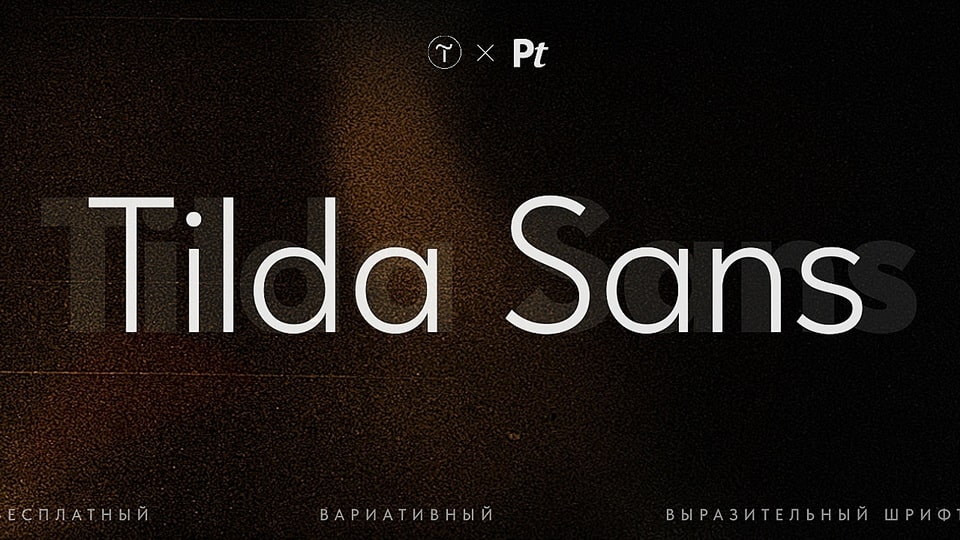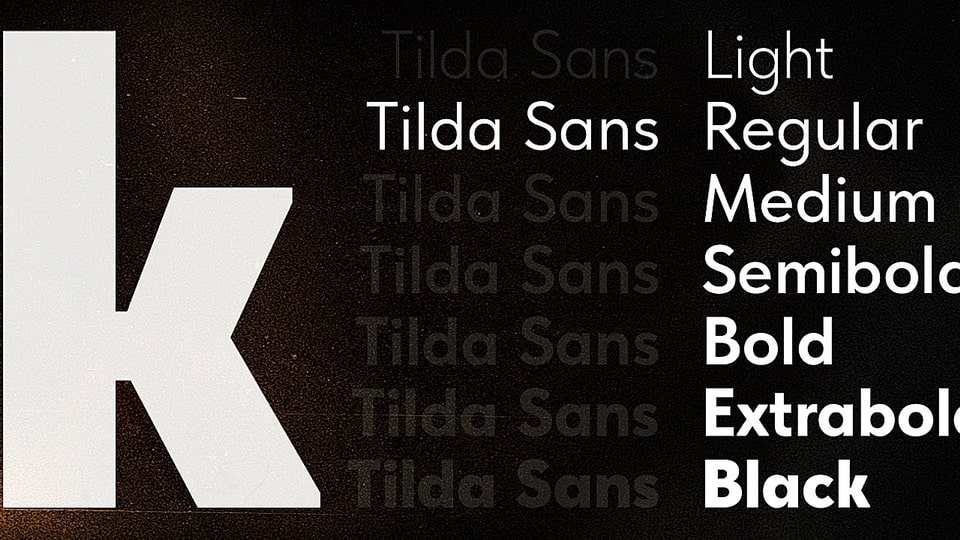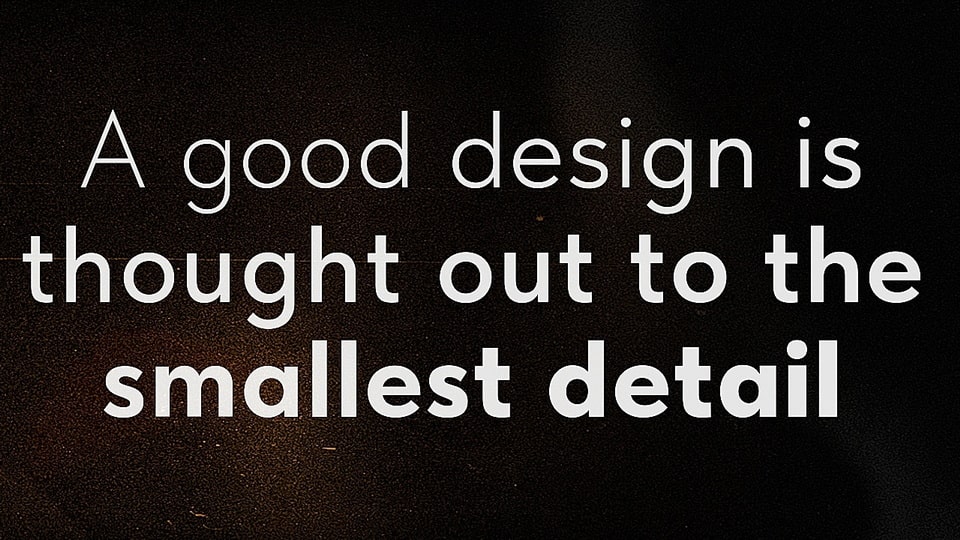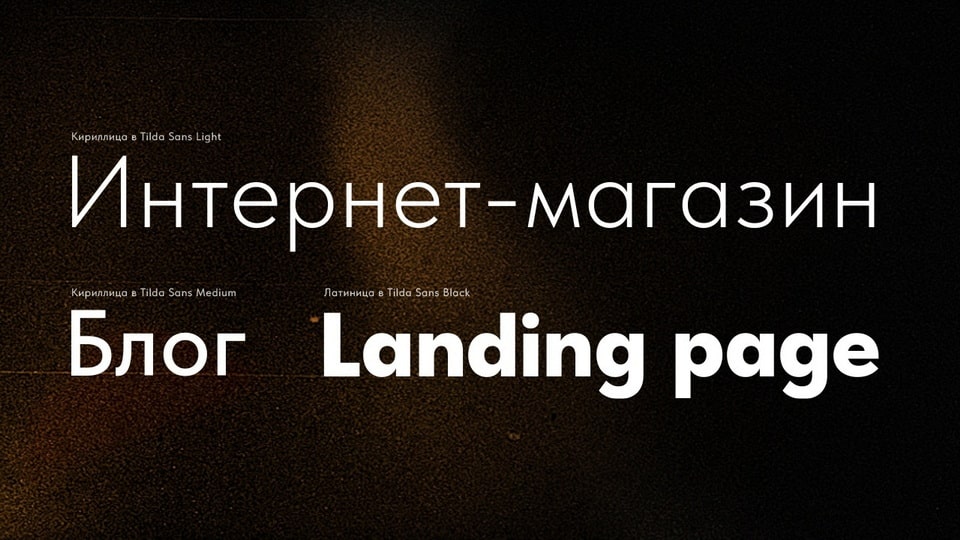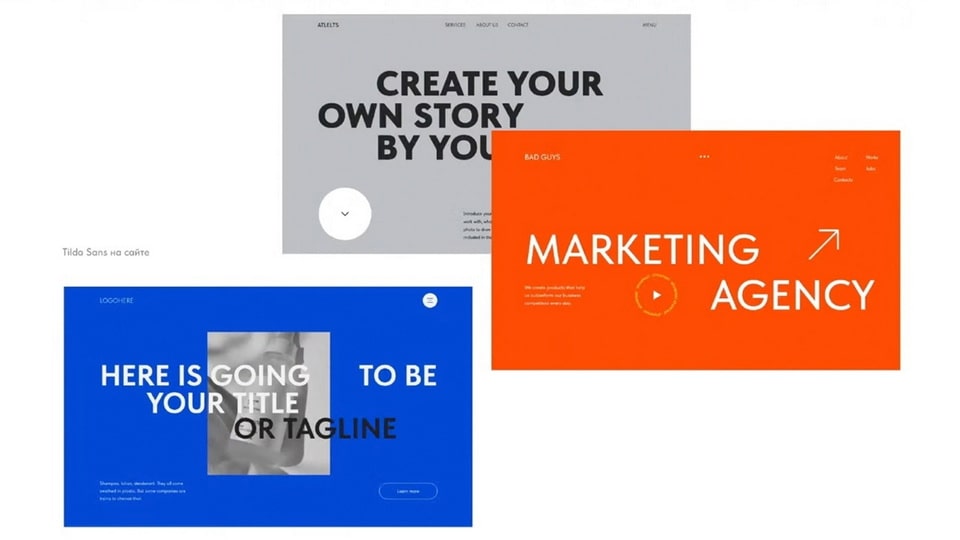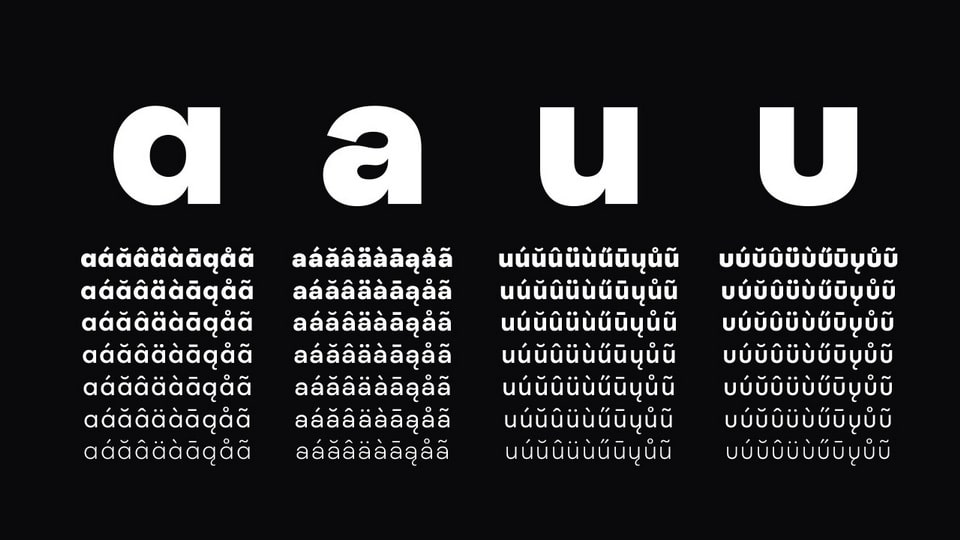
Tilda Sans is a geometric sans serif typeface for the web that features seven font weights—from Light to Black—combined into a variable typeface that ensures faster page loading and easier use in text boxes, headings, subheadings, and in the general interface.
Tilda Sans works well for both headings and body text, and also has a neutral character. These characteristics allow you to use the typeface for websites of different topics.